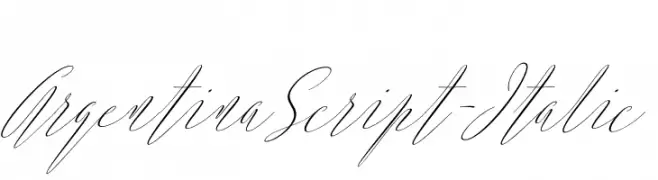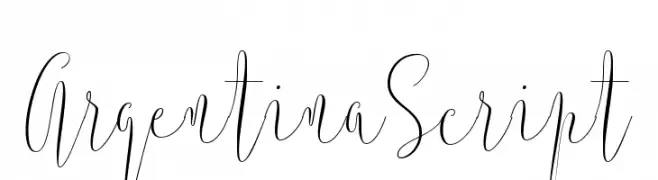
An elegant, flowing script font with high contrast and graceful curves.
A graceful script font with flowing, elongated strokes and high contrast.
A flowing, cursive script font with an elegant italic slant.
An elegant, flowing script font with a refined and sophisticated style.
An elegant script font with fluid, cursive strokes and high contrast.
An elegant script font with flowing, cursive letterforms and sophisticated style.